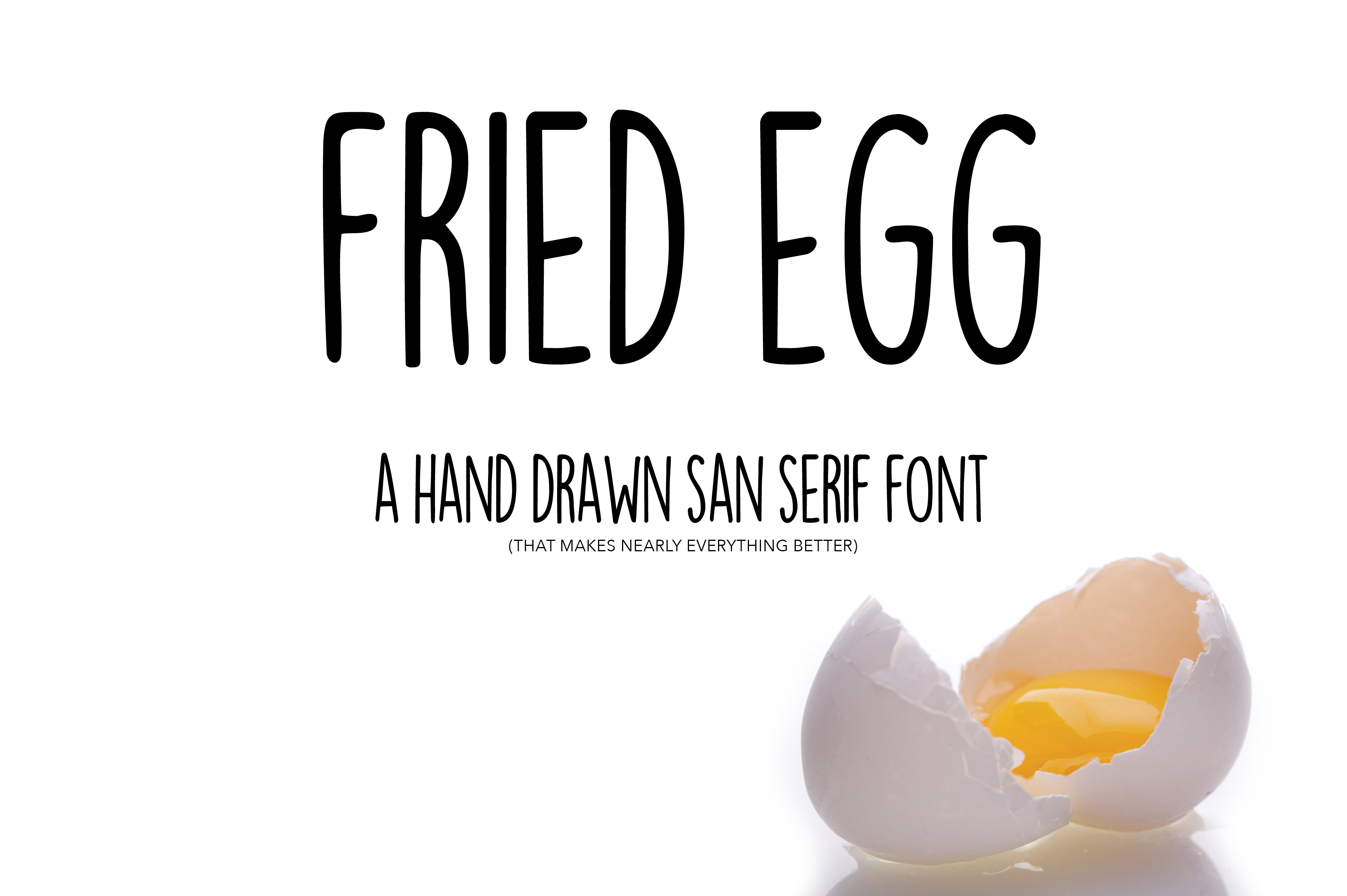
Fried Egg Font
Fried Egg is a handwritten font by Nancy Ingersoll. Designed to stand on its own but also goes with an abundance of pairings, like a fried egg does.
This sweet font maintains a clean line by keeping all of the ascenders and descenders within the lines. It is readable and goes well with a wide range of design styles. It’s a nearly all-caps font with alternates for some of the lowercase letters to express its playful nature. Also included are numerals and symbols so that you can get the job done.